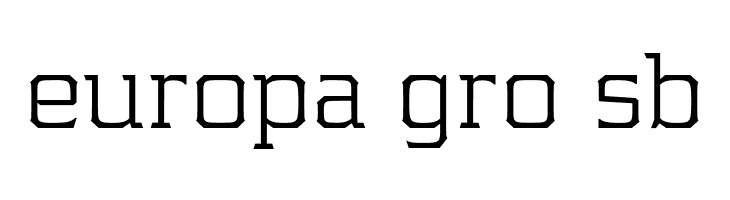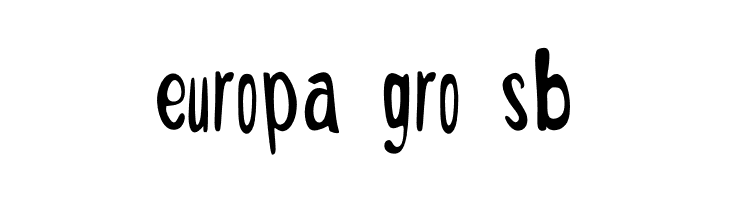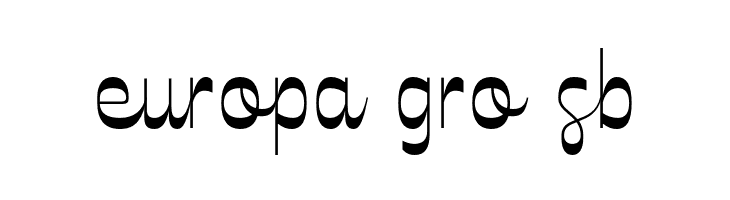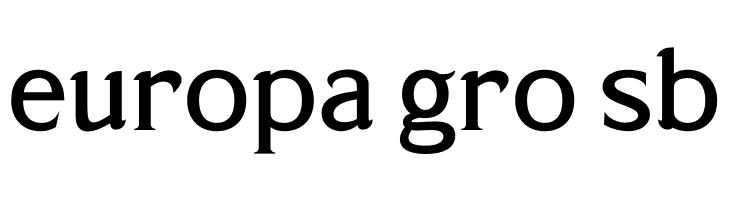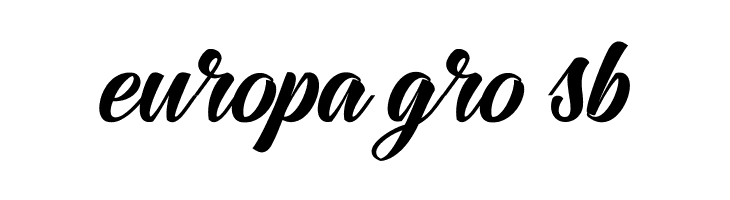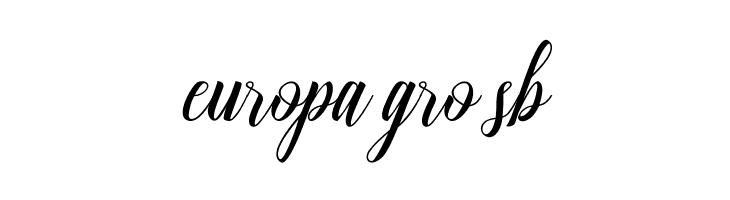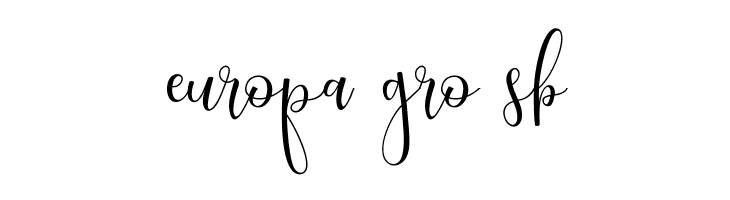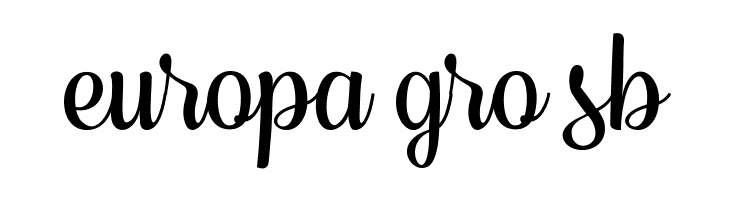
A modern, geometric font with a structured and versatile design.
A playful, handwritten font with tall uppercase and rounded lowercase letters.
A bold, modern font with geometric and rounded elements, offering a dynamic and versatile style.
A modern, geometric font with elegant curves and a versatile style.
A modern, geometric font with clean lines and versatile applications.
A classic serif font with elegant strokes and versatile applications.
A bold, flowing script font with elegant, connected letters.
An elegant script font with flowing, cursive letters and high contrast strokes.
An elegant script font with flowing, intricate loops and swashes.
A playful and elegant script font with flowing, interconnected letters.